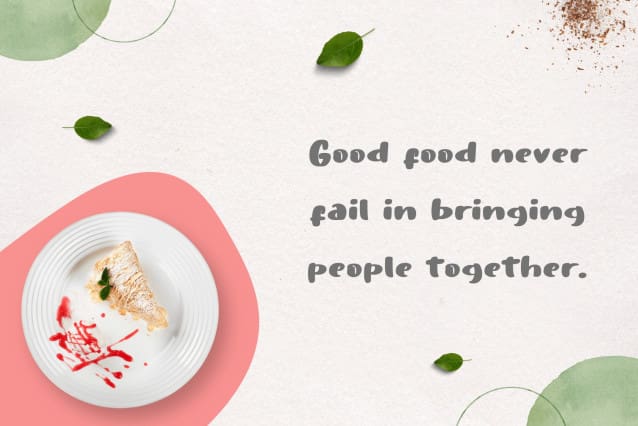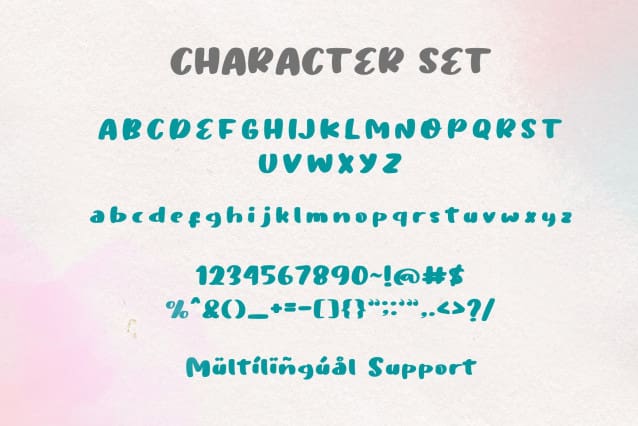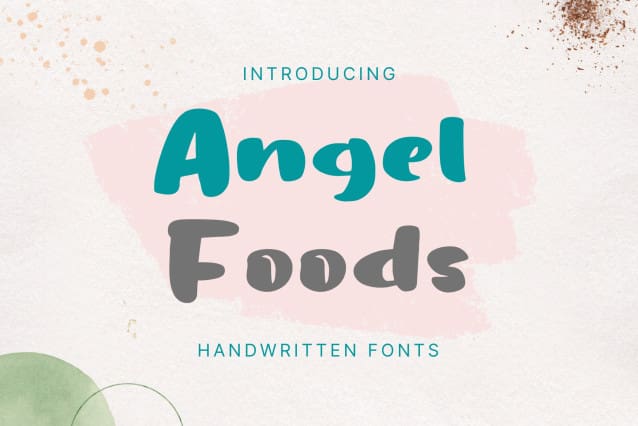
Angel Foods Font
Angel Foods – Handwritten Font, this font Is perfect for product packaging, product designs, label, photography, watermark, special events, or anything.